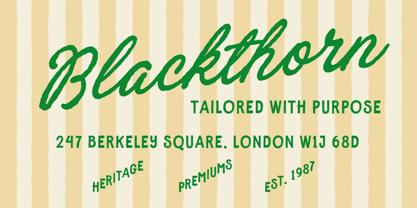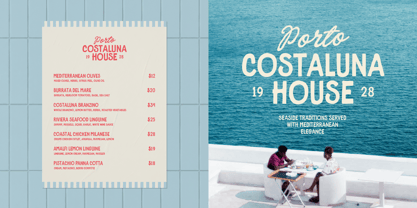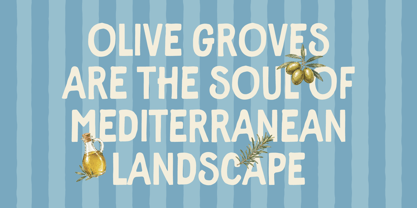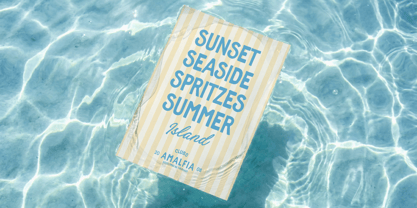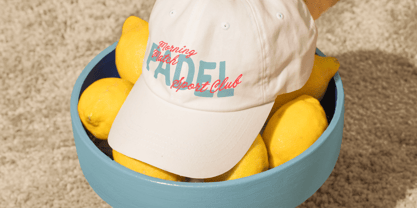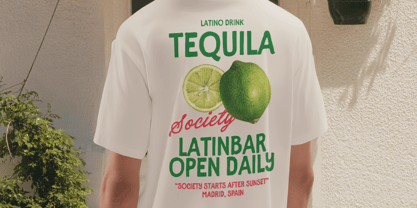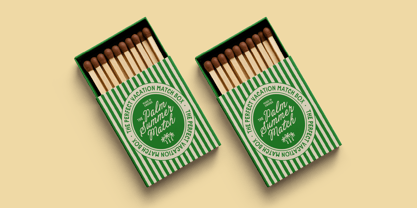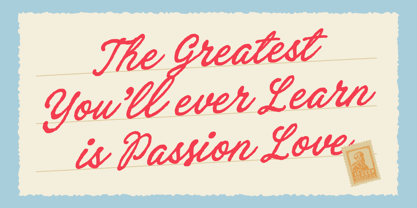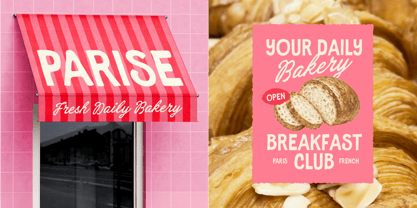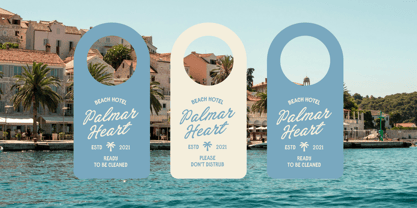
Studios Meditera
Die Schriftfamilie Studios Meditera wurde von Bagas Ferdiansah, Septianto Nugroho entworfen und von The Native Saint Club veröffentlicht. Studios Meditera enthält 2 Stile und Familienpaketoptionen. Mehr über diese Familie
Studios Meditera is a font duo inspired by Mediterranean charm, handmade café signage, coastal storefronts, vintage packaging, and the relaxed beauty of everyday branding. It combines an organic script with a handdrawn sans serif, creating a warm and natural pairing that feels expressive, friendly, and full of character.
Designed to feel versatile and easy to use, this duo works beautifully across many kinds of branding projects. Perfect for branding, logos, packaging, posters, menus, labels, apparel, social media graphics, and product design.